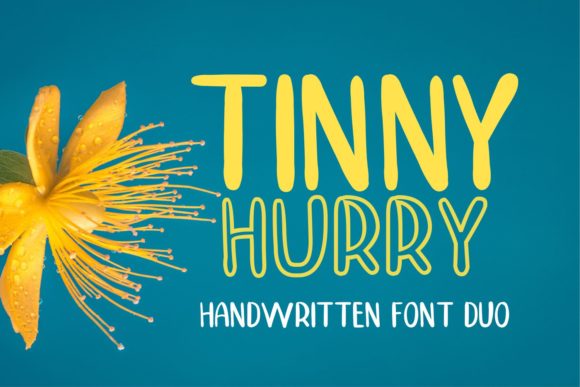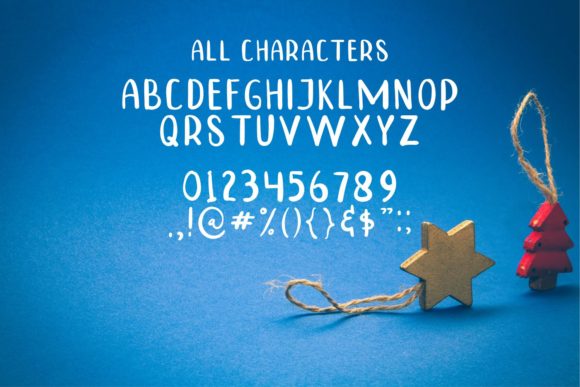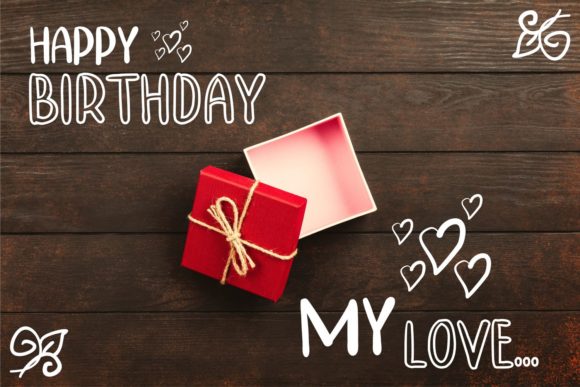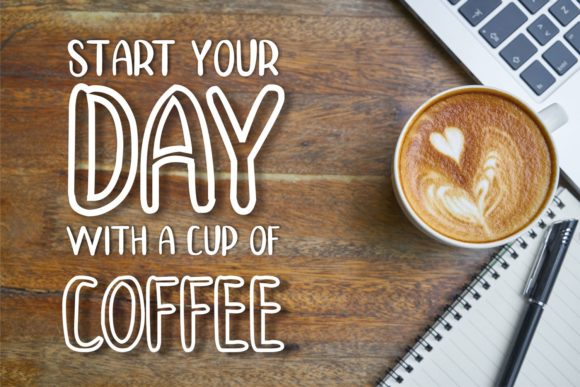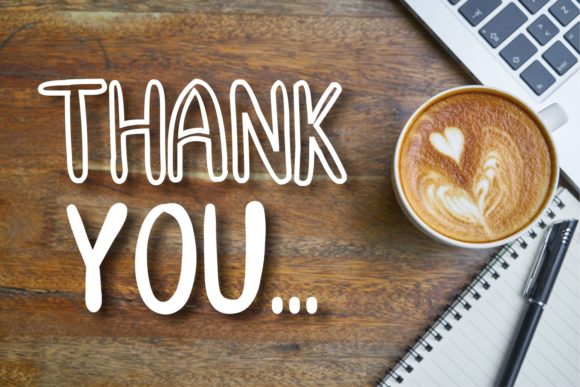
Tinny Hurry Font
About Tinny Hurry Font
The Tinny Hurry is a fun handwritten font. It comes in a regular and outlined style which can be combined together perfectly.